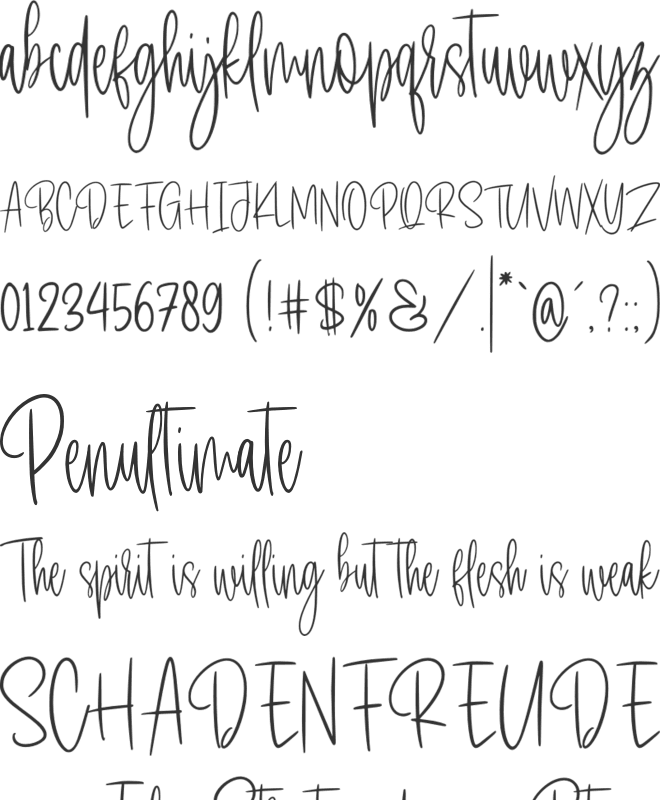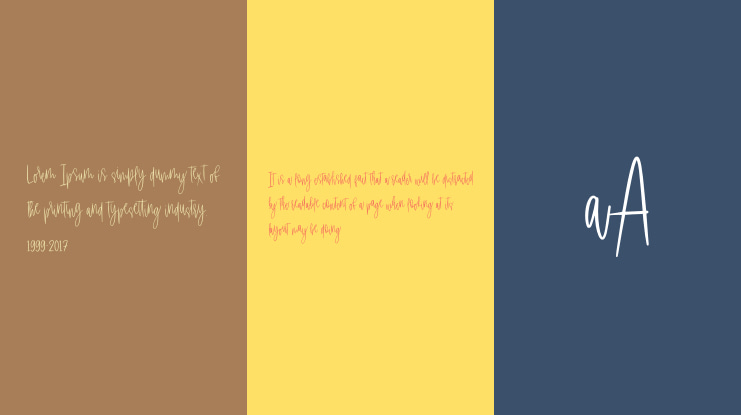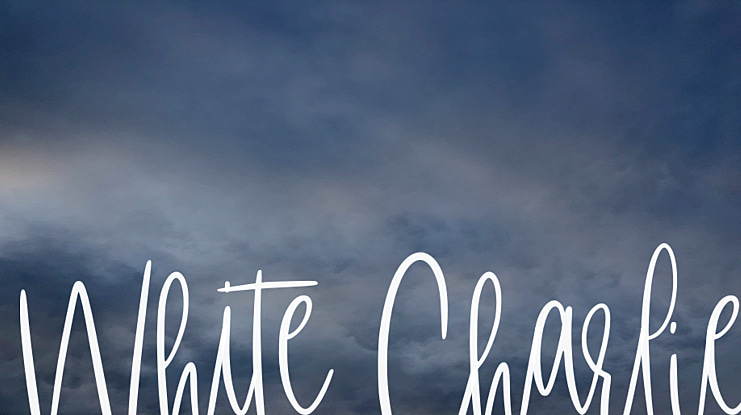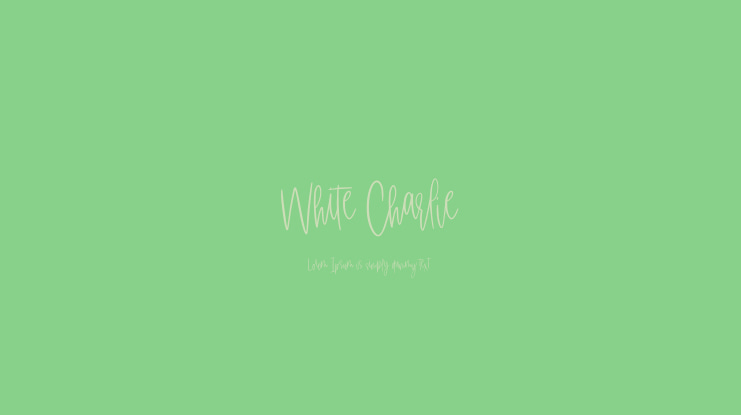
White Charlie Font
White Charlie is a chic, refined script font that emanates sophistication and elegance. Its stylish ligatures make this font the perfect match for any project.
White Charlie is consisting of a fashionable style script make looks classy and touch of stylish.
This font was created to look as close to a natural handwritten script as possible.